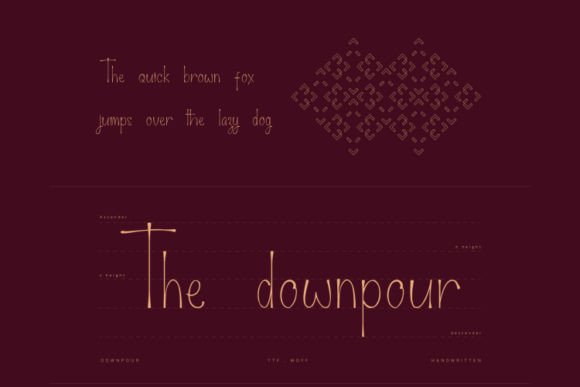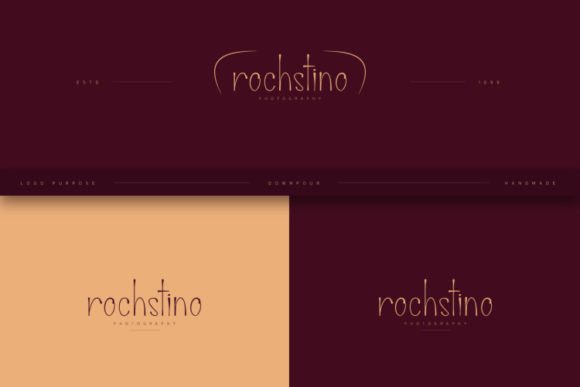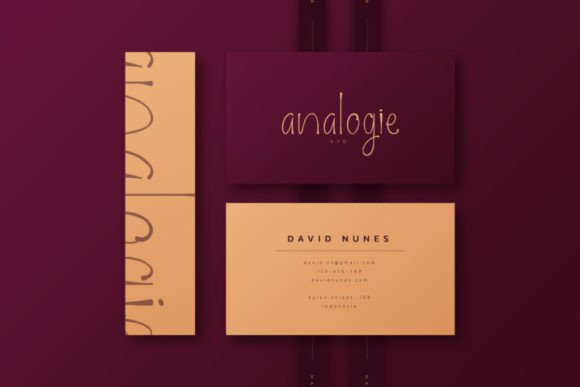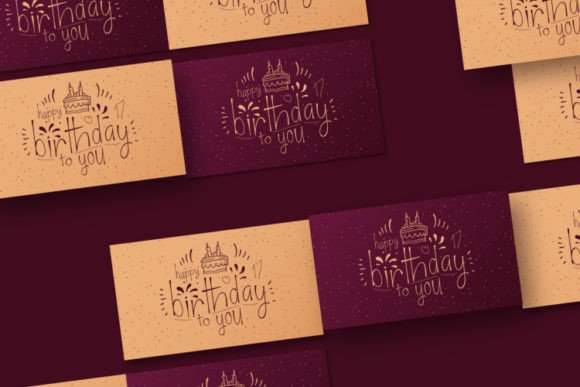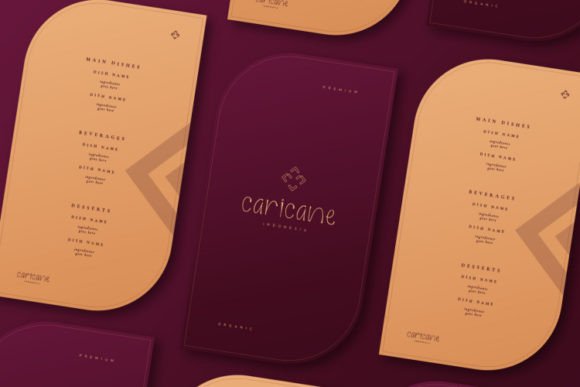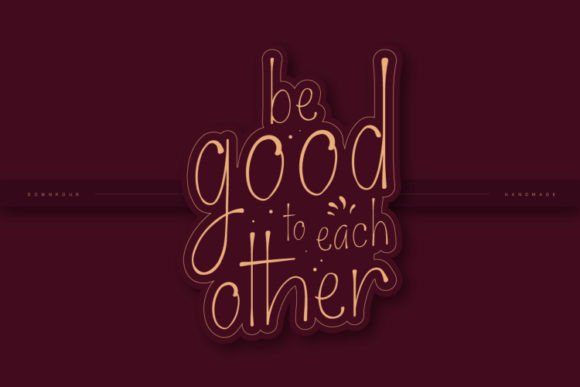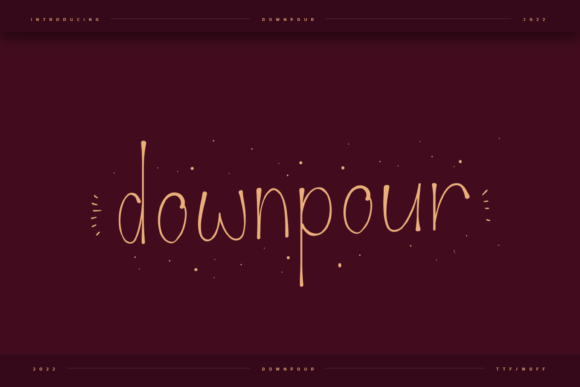
Introducing Downpour Font: Add a Refreshing Touch to Your Designs
Are you tired of using the same old fonts in your designs? Do you want to add a touch of whimsy and friendliness to your projects? Look no further than Downpour Font, a fun and handwritten font that’s perfect for crafters, designers, and anyone looking to add a refreshing look to their work.
What is Downpour Font?
Downpour Font is a carefully crafted handwritten font that’s designed to bring a cute and friendly vibe to your designs. With its unique and playful style, this font is perfect for a wide range of projects, from creative crafts to digital designs. Whether you’re working on a logo, a poster, a social media graphic, or a website, Downpour Font is sure to add a touch of personality and charm.
Key Features of Downpour Font
- Handwritten style: Downpour Font is a handwritten font that’s designed to look like it was written with a pen or pencil. This gives it a personal and friendly feel that’s perfect for designs that need a touch of warmth and personality.
- Cute and friendly vibe: The font has a distinctly cute and friendly vibe that’s sure to appeal to designers and crafters who want to create designs that are approachable and engaging.
- Refreshing look: Downpour Font is designed to add a refreshing look to your designs. Its unique style is sure to make your projects stand out and leave a lasting impression on your audience.
- Versatile: This font is versatile and can be used for a wide range of projects, from digital designs to creative crafts.
Who is Downpour Font for?
Downpour Font is perfect for:
- Designers: If you’re a designer looking for a unique and playful font to add to your collection, Downpour Font is a great choice. Its friendly and approachable style makes it perfect for designs that need a touch of personality.
- Crafters: If you’re a crafter who loves to create handmade projects, Downpour Font is a great choice. Its handwritten style and cute vibe make it perfect for adding a personal touch to your crafts.
- Small business owners: If you’re a small business owner looking for a font that will help you stand out from the competition, Downpour Font is a great choice. Its unique style and refreshing look make it perfect for branding and marketing materials.
How to Use Downpour Font
Using Downpour Font is easy. Here are a few tips to get you started:
- Pair it with other fonts: Downpour Font pairs well with other fonts, so feel free to experiment with different combinations to find the perfect look for your design.
- Use it for headings and titles: Downpour Font is perfect for headings and titles, where its unique style can really shine.
- Add it to your digital designs: Downpour Font can be used for a wide range of digital designs, from social media graphics to website headers.
- Use it for creative crafts: Downpour Font is also perfect for creative crafts, such as scrapbooking, card making, and journaling.
Downpour Font is a fun and whimsical handwritten font that’s perfect for designers, crafters, and anyone looking to add a refreshing look to their designs. With its cute and friendly vibe, unique style, and versatility, this font is sure to become a favorite in your collection. So why wait? Download Downpour Font today and start adding a touch of personality and charm to your projects!